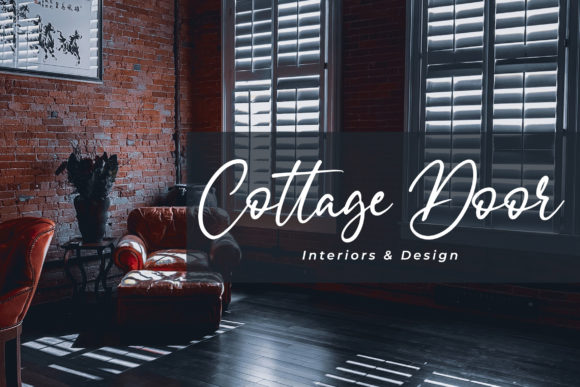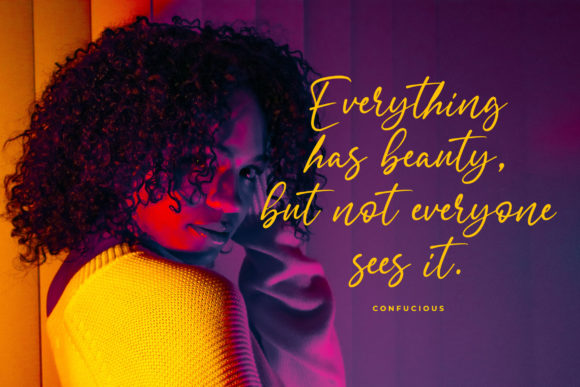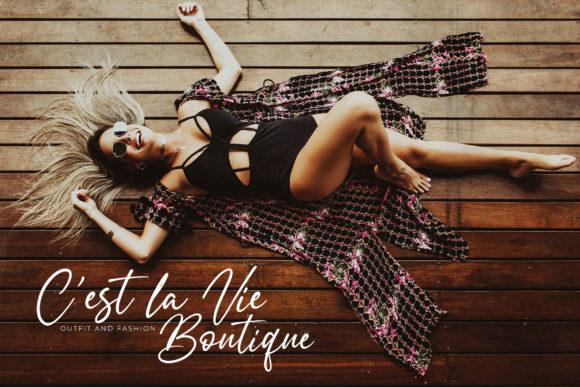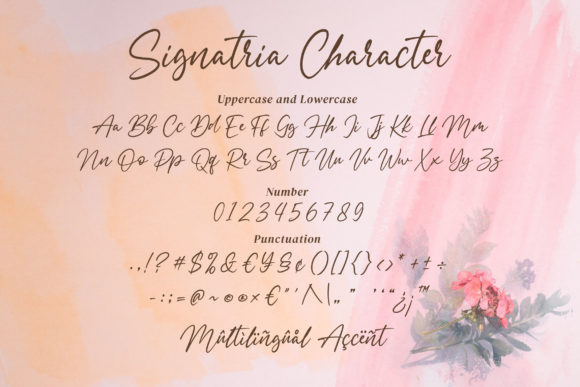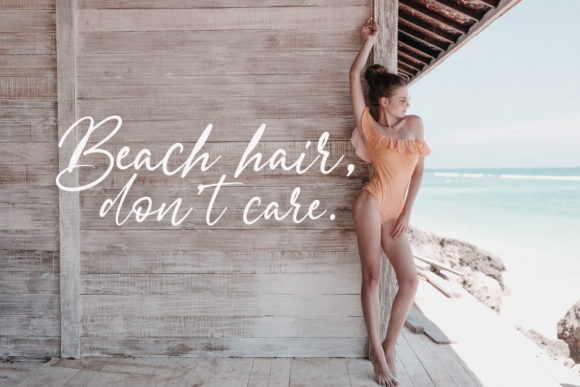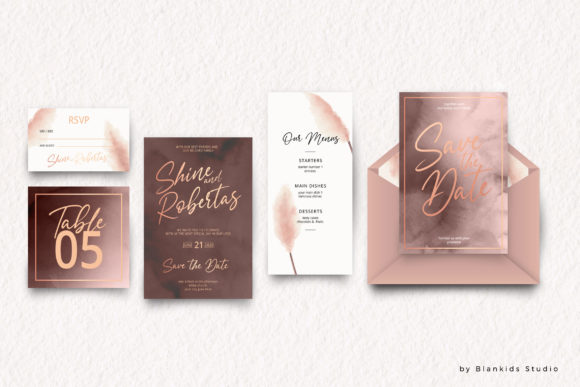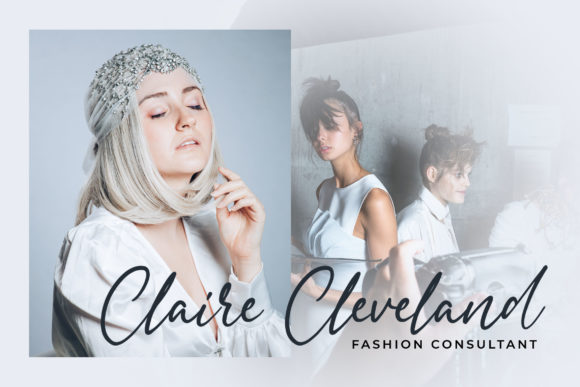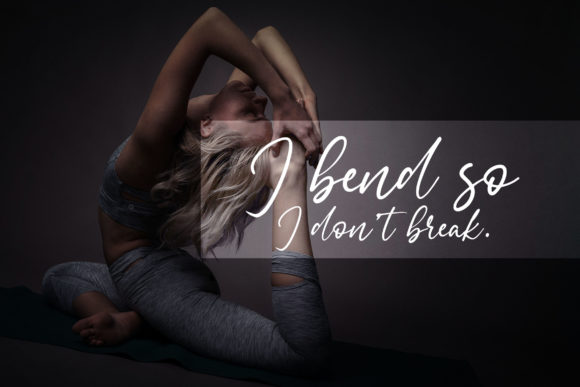
Signatria Font
About Signatria Font
Signatria is a casual and flowing handwritten font. Its natural and unique style makes it incredibly fitting to a large pool of designs. The only limit is your imagination!